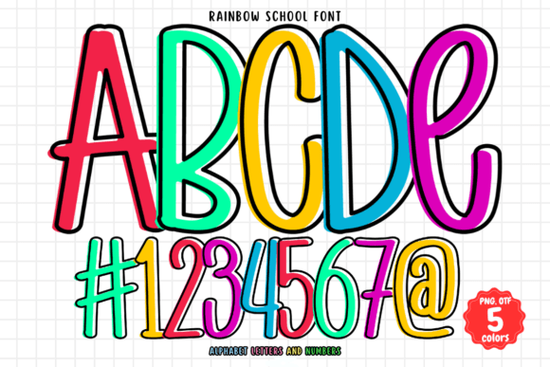
If you are looking for a way to add instant cheer to your classroom materials or creative projects, the Rainbow School Font is a fantastic choice. This isn't just another standard typeface; it is a vibrant, multicolored handwritten font designed to capture the playful spirit of learning and imagination. Teachers, designers, and crafters will find it perfect for projects that need to feel energetic and fun.
What exactly is the Rainbow School Font and what makes it different?
The key difference is that Rainbow School is an OpenType-SVG (color font). Unlike traditional fonts that only display in a single solid color, this font contains full-color artwork built directly into every character. This means you get a beautiful, handwritten rainbow effect without having to manually layer or recolor each letter. It brings a built-in sense of fun to your text, making it ideal for engaging designs like posters, worksheets, and classroom decor.
What kind of projects can I use this colorful school font for?
The applications are incredibly broad, thanks to its cheerful style. Here are just a few ideas for teachers, small business owners, and creative hobbyists:
- School & Classroom: Perfect for worksheet headers, classroom labels, bulletin boards, and digital lesson slides. It makes learning materials feel more inviting. You could pair it with a composition book pattern font for a cohesive school-themed project.
- Print-on-Demand & Crafts: Create eye-catching t-shirts, tote bags, mugs, and greeting cards. The multicolor design adds value because it saves you time on coloring and layering. For a more illustrative feel, check out the bright rainbow school doodle font.
- Holiday & Party Decor: Use it for birthday party invitations, holiday cards, and seasonal banners. A spring bee font could be a great companion for spring-themed projects alongside this one.
- Digital Content: Great for social media graphics, blog post titles, and YouTube thumbnail text that needs to pop off the screen.
- Plan your project. Rainbow School works best for short, impactful headings and titles rather than long paragraphs of text.
- Pair it simply. Combine it with a clean, solid font for the body text to keep your overall design balanced and readable.